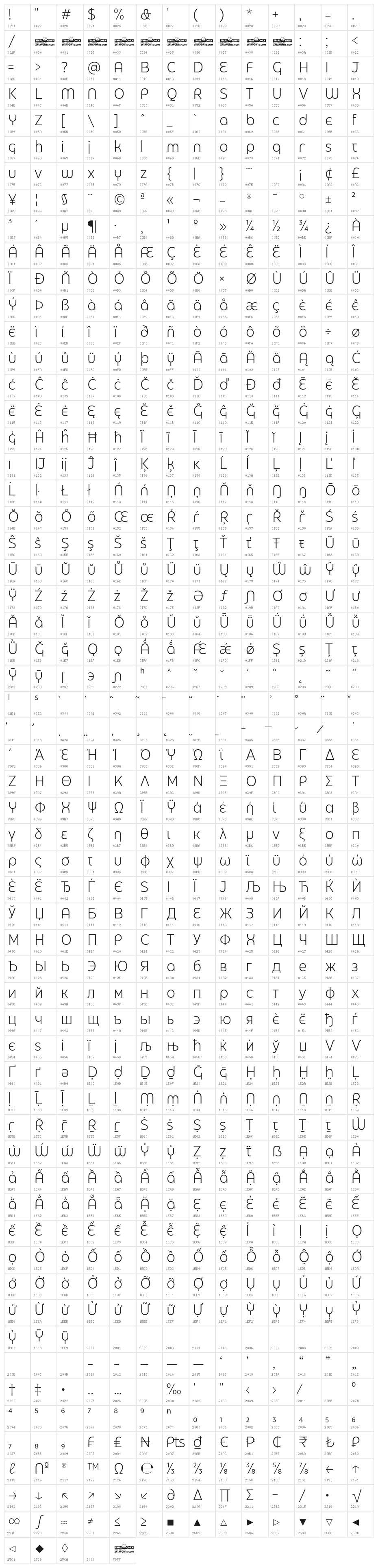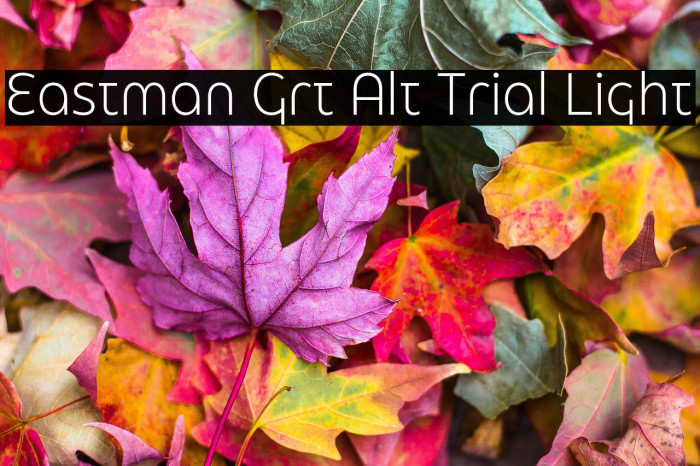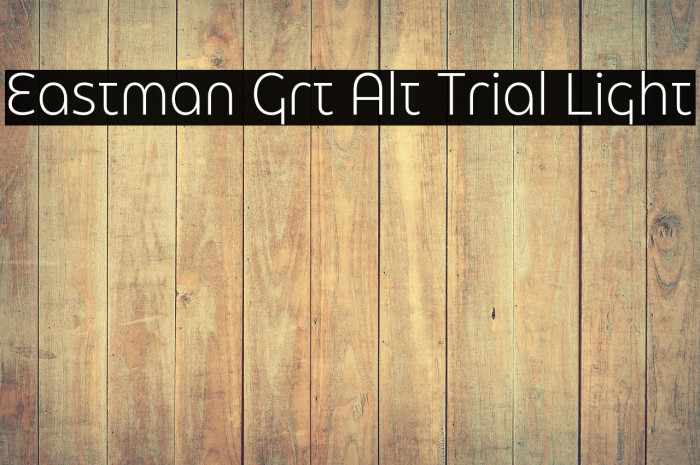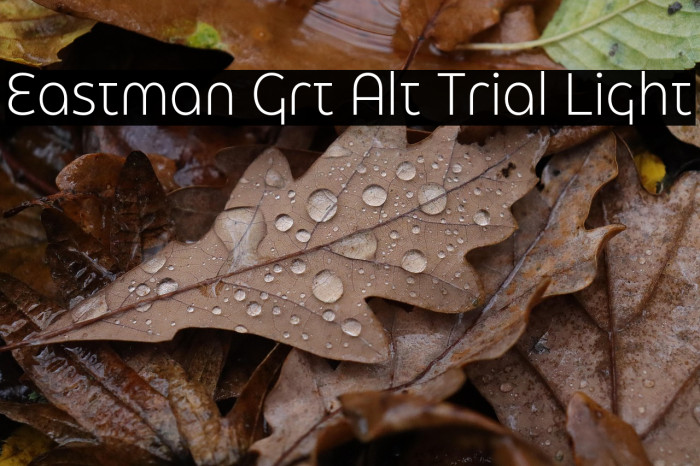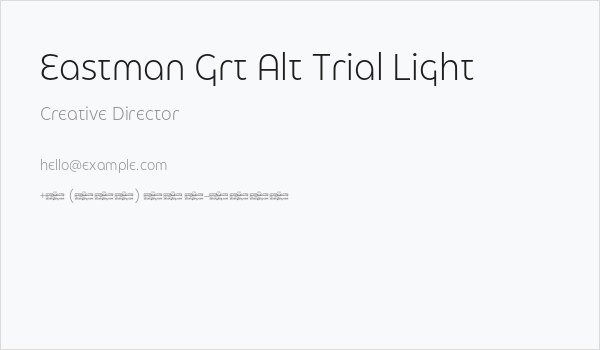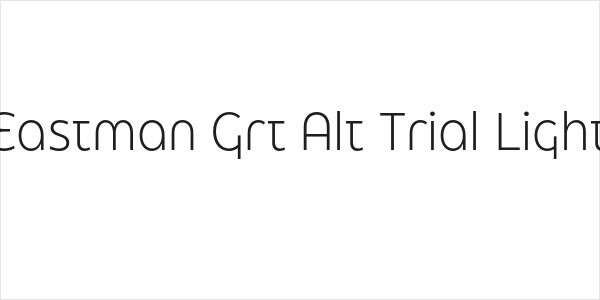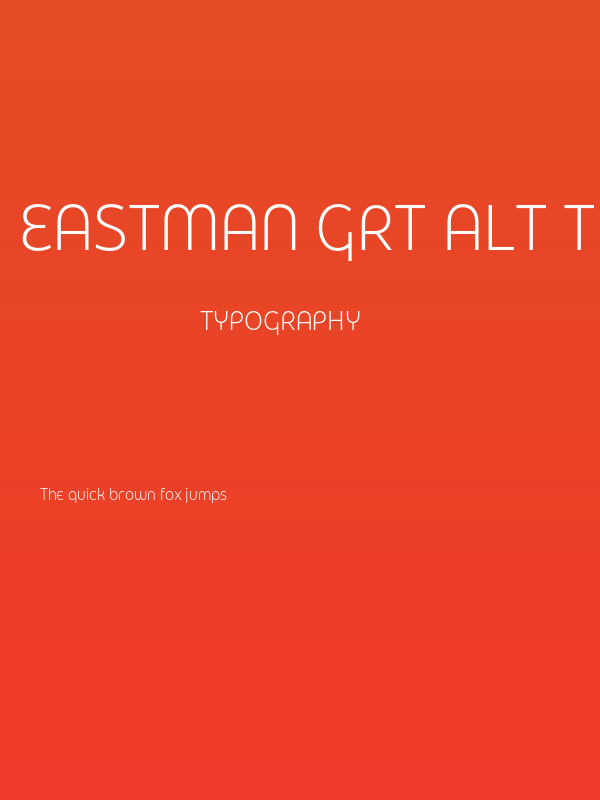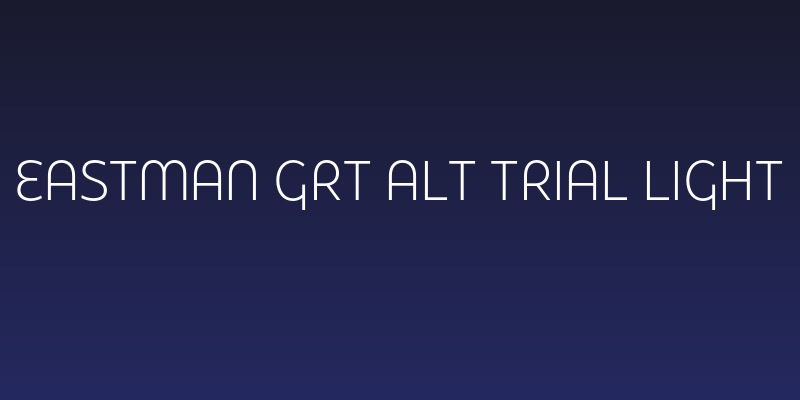
Eastman Grt Alt Trial Light Font
Eastman Grt Alt Trial Light Description
This font features a clean, geometric design with a modern aesthetic. The characters are constructed with smooth curves and straight lines, creating a harmonious balance between roundness and angularity. The uppercase letters exhibit a uniform height and width, while the lowercase letters maintain a consistent x-height, enhancing readability. The numerals and special characters are crafted with the same attention to detail, ensuring a cohesive look across all elements. The overall appearance is sleek and minimalistic, making it suitable for contemporary design projects.